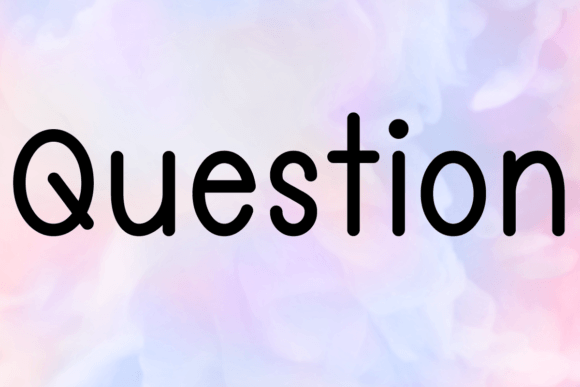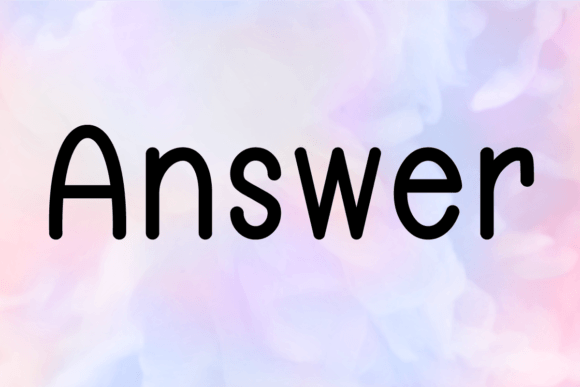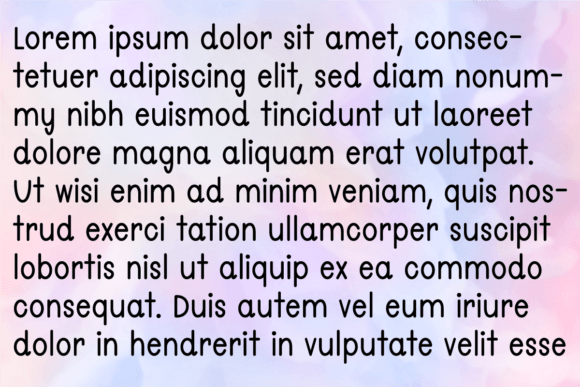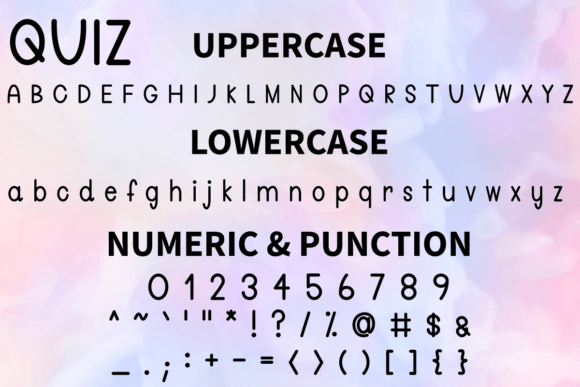
Quiz Font
About Quiz Font
Add Playful Charm with Quiz Font
Bring a whimsical touch to your work with the Quiz font download. This simple and friendly handwritten typeface adds joy and personality to any design, making it ideal for creatives who want to stand out while maintaining a lighthearted tone.
Versatile for Any Project
Whether you’re designing for fun or for business, Quiz fits in perfectly. You can use it for:
• Wedding invitations and greeting cards
• Brand logos and promotional materials
• Inspirational quotes and typography posters
• Magazines, ads, and blog headlines
• Social media graphics, stickers, and product packaging
The friendly strokes and slight quirks give your text a natural, approachable feel without overwhelming the message.
Designed to Delight
The Quiz font download offers great readability with a playful edge. It shines in both small and large sizes, working beautifully in both digital and printed formats. With this font, your ideas will instantly feel more personal and authentic.